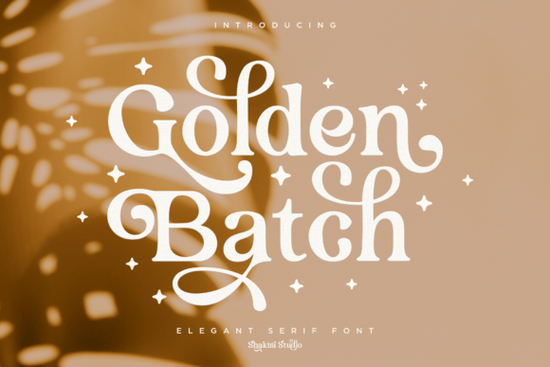
If you're looking for a serif font that blends vintage charm with modern elegance, Golden Batch Font is worth a closer look. Designed with graceful curves, high contrast strokes, and delicate terminals, it’s especially well-suited for projects where sophistication matters think wedding invitations, luxury branding, holiday cards, or even quote graphics for social media. What sets it apart is its PUA encoding, which gives you easy access to decorative glyphs and ligatures without needing advanced design software.
What makes Golden Batch work for creative projects?
Serif fonts like Golden Batch carry a timeless appeal, but this one leans into a refined, slightly retro aesthetic. The thick-and-thin stroke variation creates visual interest, while the subtle flair in letter endings adds personality without overwhelming your layout. For small business owners creating branded packaging or crafters designing printable wall art, these details can make a big difference in perceived quality.
Because it includes extended characters and stylistic alternates (thanks to PUA encoding), you can easily swap in swash capitals or connected letter pairs for a custom feel ideal if you’re making something like a monogrammed gift tag or an anniversary announcement. You don’t need to be a typography expert; most design apps like Canva, Adobe Illustrator, or Affinity Designer will let you toggle these features through their glyph panels.
How does it compare to other elegant serif fonts?
If you’ve browsed Creative Fabrica’s collection, you might have come across similar options like Rusilla or Valdo. While Rusilla offers a softer, more calligraphic touch and Valdo leans toward minimalist refinement, Golden Batch strikes a balance with its bold presence and ornamental details. It’s bolder than Agerola, which has a lighter, airy quality, and far more decorative than the rugged simplicity of Sporty Tee Distressed.
That said, pairing Golden Batch with a clean sans-serif (like Montserrat or Lato) often works best its ornate nature means it shines as a headline or display font rather than body text. Use it sparingly for maximum impact.
Who should use this font?
- Print-on-demand sellers creating premium mugs, posters, or apparel with inspirational quotes.
- Wedding stationery designers who want a romantic yet legible script alternative.
- Small business owners building logos or packaging for boutique products (think candles, skincare, or gourmet foods).
- Hobbyists making personalized gifts or seasonal decor its holiday-ready elegance suits Christmas cards or Valentine’s Day prints.
Just keep in mind: because of its detailed strokes, avoid using it at very small sizes or on low-resolution prints. It performs best when given room to breathe.
If you’re already exploring serif options, consider bundling it with complementary fonts like Golden Batch’s stylistic cousins for variety. Having a few go-to serifs in your toolkit lets you match tone precisely whimsical, formal, nostalgic, or luxurious.
Golden Batch isn’t trying to be everything to everyone and that’s its strength. If your project calls for understated glamour with a hint of old-world charm, it’s a reliable, versatile choice that delivers without fuss.